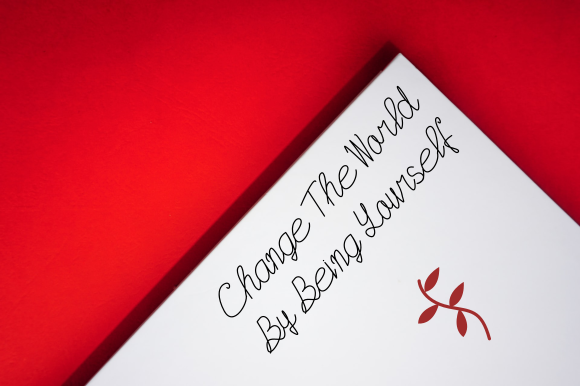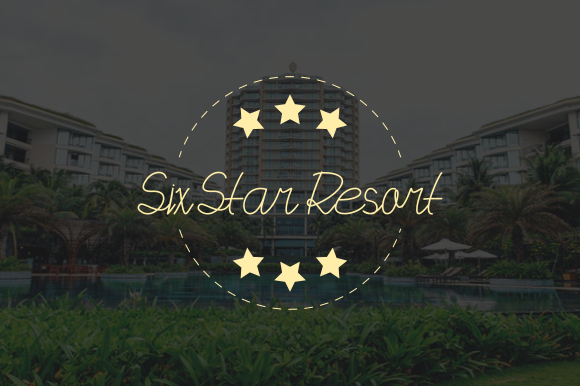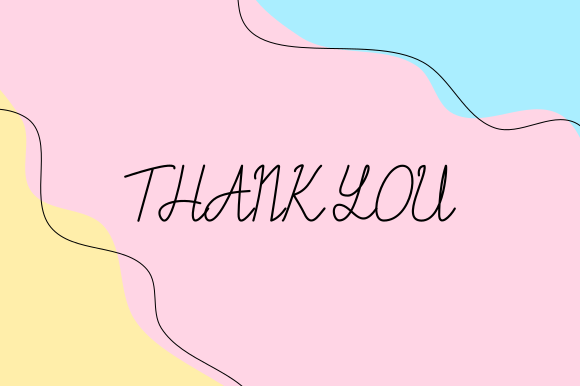
Introduction to Myra Font Font
Fonts play a crucial role in design, and the Myra Font font is a typeface that brings both character and versatility to any project. Whether you’re working on a branding project, a website, or a print design, the Myra Font font offers a unique style that can elevate your work.
Myra is an elegant and stylish handwriting font.
Use this font to create stationary art, wedding invitations, greeting cards, or a social media posts .
Key Features of Myra Font Font
Why Choose Myra Font Font?
The Myra Font font is more than just a typeface – it’s a design tool that helps you communicate your message with style and clarity. Its unique character set and versatile design make it suitable for a wide range of applications, from elegant invitations to bold headlines.
With its carefully crafted letterforms and balanced proportions, the Myra Font font ensures readability and visual appeal across all mediums.
What makes Myra Font font special?
The Myra Font font stands out with its unique design, exceptional readability, and versatility across various design applications.